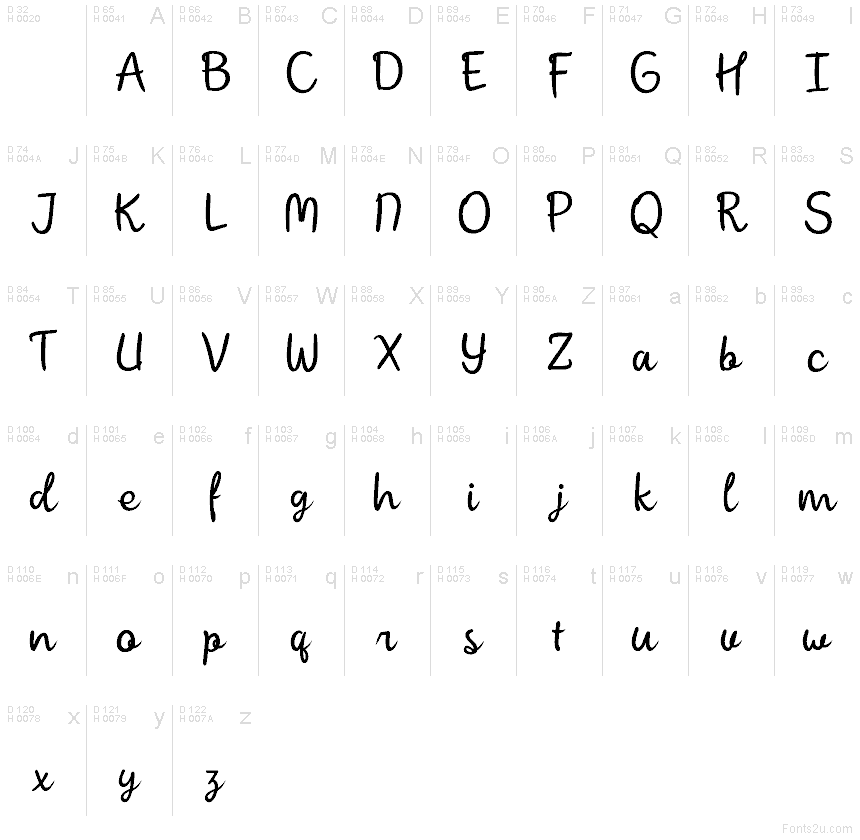
CS Ringo Regular Demo
CS Ringo font by Craft Supply Co. is a free handwritten font that fixes a common headache: getting a friendly, human touch without sacrificing clarity. Its rounded, monoline strokes feel inky and soft, with a gentle bounce that adds personality while keeping spacing open and readable. The letters sit with an easy rhythm—playful, but never messy—so headlines pop and longer lines still scan smoothly.
Using CS Ringo, you can bring warmth to cafe menus, boutique branding, product labels, quote graphics, invitations, and social posts. This free font shines on stickers and packaging where a casual, crafted vibe matters, and it scales well from small tags to bold headers. Simple tip: pair it with a clean geometric sans to ground the charm and let CS Ringo do the talking.